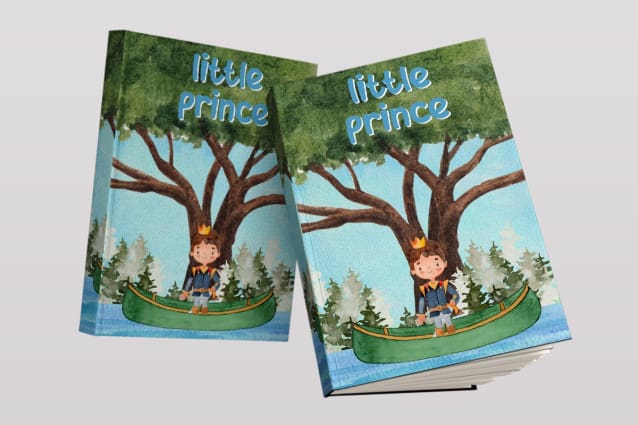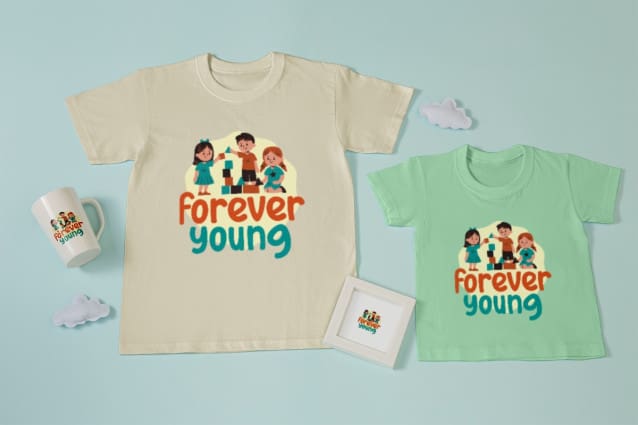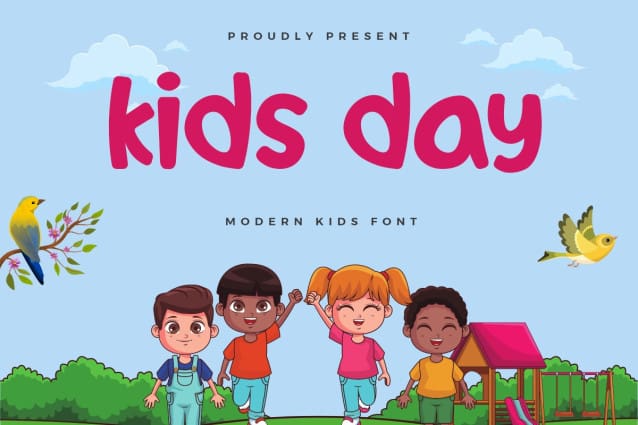
Kids Day Font
Kids Day Font – Modern Kids Font features fun and modern design elements. Each letter of this font is easy to distinguish. You can see it clearly from a distance or up close. The letters in this font are simple, upright, and clean. This font is legible. It is suitable for children who are just learning to distinguish letters and learning to read.
This typeface is the best font for children’s equipment, such as school supplies, children’s clothing, and water bottles. Sunday Mine Modern Kids Font can use on posters and billboards on the roadside containing promotions or product announcements about children. This font can use on book and magazine covers. This font is best for writing short sentences or words because it will look simple and clean.
Kids Day Font – Modern Kids Font can be used as a digital font. It is suitable for animated videos and can use as a title or subtitle that appears in the intro for writing thank-you notes on the outside of the video. This font can be included in cartoons and fairy tales. Of all the explanations, Kids Day Font – Modern Kids Font is the best children’s font.